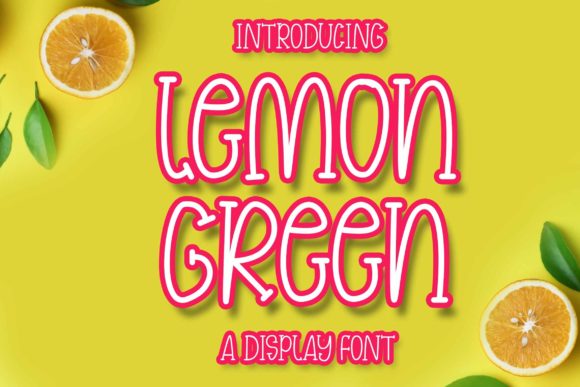
Introducing Lemon Green Font, a captivating serif font that oozes charm, cheer, and playfulness. Step into the world of adorable typography as you discover this unique font, lovingly crafted by Letterday Studio. Lemon Green is more than just a font; it's a vibrant splash of color, a burst of joy, and a dash of whimsy that will transform your creative projects into masterpieces.
Picture this: the excitement of crafting personalized children's t-shirts, adorning them with Lemon Green's playful curves. Let your child's imagination soar as they proudly wear their unique creations, brimming with fun and personality.
Journey into the realm of book covers, where Lemon Green takes center stage, inviting readers into worlds filled with adventure, laughter, and wonder. Its charming presence will captivate bookworms of all ages, promising an unforgettable reading experience from the very first page.
Envision the vibrancy of Lemon Green adorning children's posters, creating enchanting spaces that spark imagination and creativity. Watch as little ones embark on imaginary quests, explore magical forests, and meet endearing characters, all brought to life by the magic of Lemon Green's playful charm.
Unleash your inner artist as you design eye-catching t-shirts with Lemon Green, spreading joy wherever you go. Its cheerful spirit is sure to turn heads, sparking conversations and spreading smiles. Embrace the power of self-expression and let your personality shine through with each unique design you create.
Dive into the world of card crafting and discover the magic of Lemon Green in birthday cards, invitations, and greeting cards. Its friendly demeanor will warm hearts and create lasting memories. Send heartfelt messages with a touch of whimsy that will be cherished long after the occasion.
Lemon Green is not just a font; it's an open door to a world where creativity knows no bounds. Its versatility extends from branding and logo design to web design and social media graphics. Let Lemon Green become your creative companion, adding a touch of magic to every project you undertake.
But what truly sets Lemon Green apart is its ability to transport you to a world of Christmas cheer. Picture the warmth of a cozy fireside, the excitement of unwrapping presents, and the joy of spending time with loved ones. Lemon Green captures the essence of the festive season, bringing a touch of holiday magic to all your projects.
Join the growing community of design enthusiasts who have embraced the charm of Lemon Green. It's time to unlock your creative potential and embark on a typographic adventure like never before. Welcome Lemon Green into your design toolbox and witness the transformation it brings to your projects. Let's make something extraordinary together!